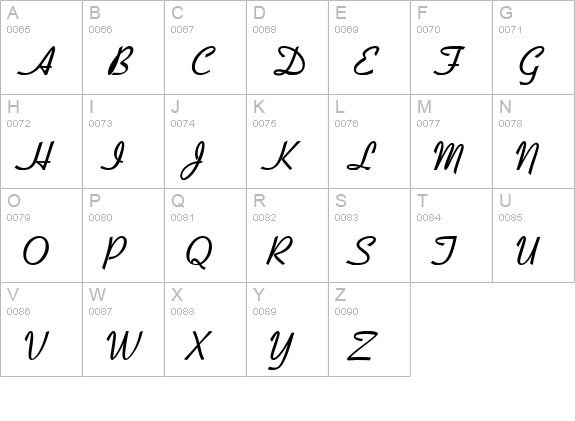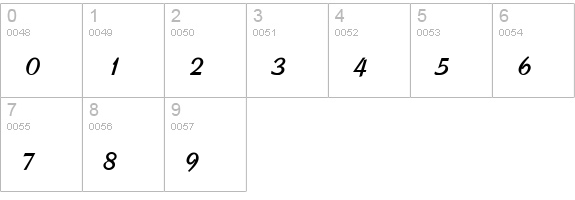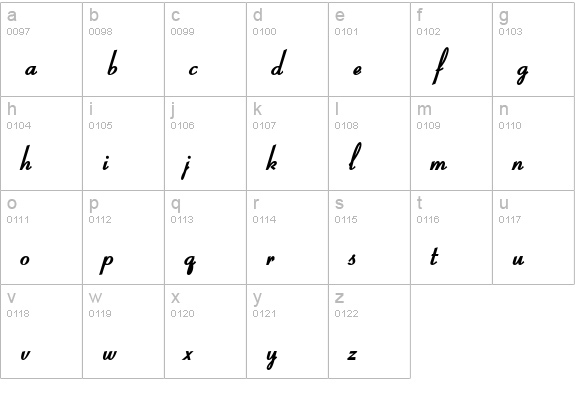
Bow Bold is a strong, high-contrast variant in the Bow typeface family \xE2\x80\x94 well suited to headlines, attention-grabbing titles, and strong calls-to-action.
Introducing Bow Bold font, a modern and stylish typeface that exudes confidence and sophistication. With its clean lines and bold design, Bow Bold is perfect for making a statement in any project. Whether you're creating a striking headline, designing a sleek logo, or crafting eye-catching branding materials, this font is sure to command attention. The best part? Bow Bold font is completely free to download at FontsMarket.com. That's right, you can elevate your designs without breaking the bank. Don't miss out on this fantastic opportunity to add a touch of elegance to your work with Bow Bold font. Download it now and start creating with style and flair!